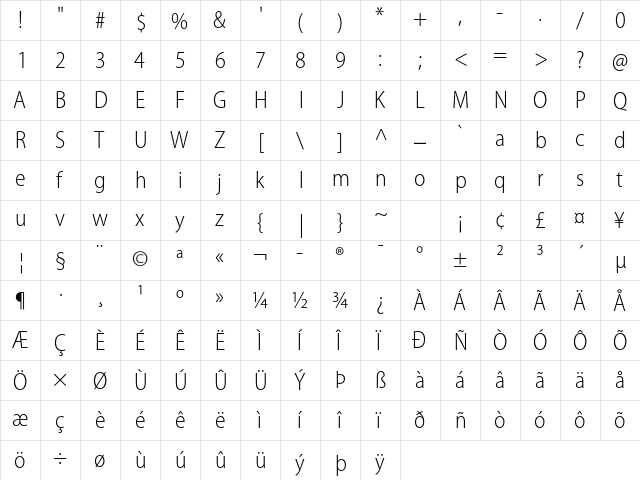
Myriad Pro Light SemiCondensed Font Preview
Myriad Pro Light SemiCondensed
Myriad Pro Light SemiCondensed Font Details
| Style | Light SemiCondensed |
| Designer | Robert Slimbach and Carol Twombly |
Design Context for Myriad Pro Typeface
Myriad Pro offers clean, dependable letterforms without strong stylistic allegiance, making it a practical choice for designers who need flexibility. Its slender proportions lend an understated elegance to any composition. The condensed width makes it efficient for tight spaces without sacrificing legibility.